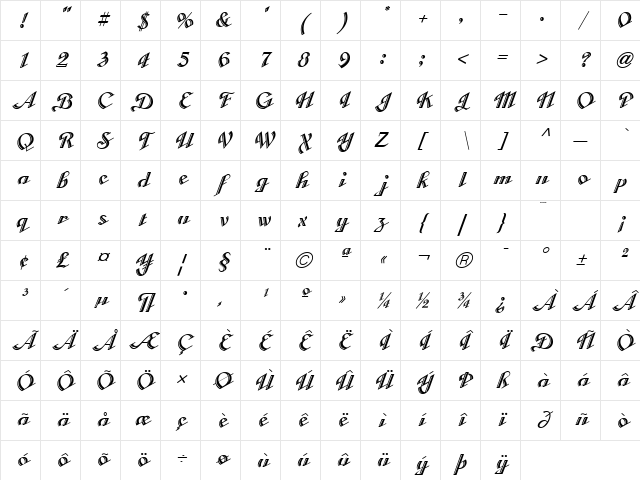
Complete Cabarga Medium glyph index. Displaying only characters natively supported by Cabarga Medium font.
Cabarga is a composed and adaptable typeface that performs quietly and consistently across a wide range of design contexts.